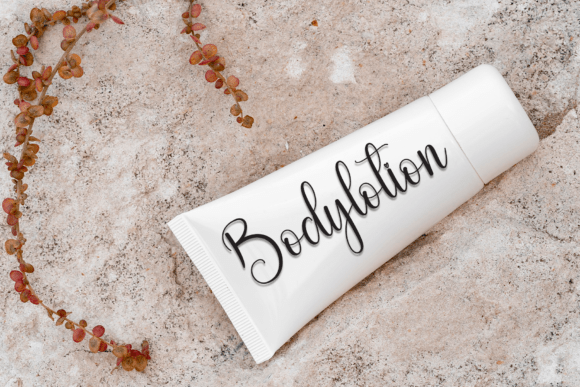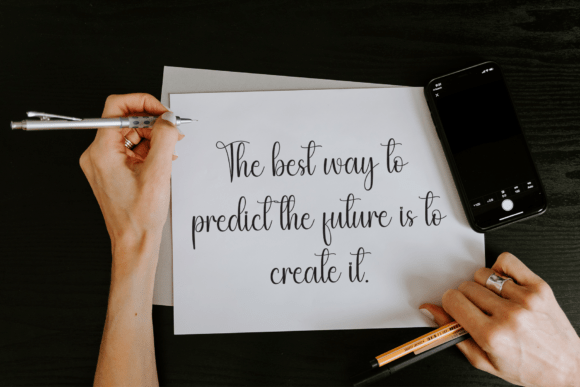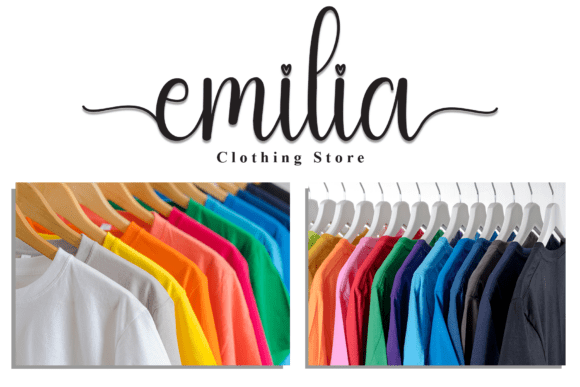
Escape Font: Elegant Handwritten Script for Wedding Branding
About the Escape Font
Welcome to the world of Escape Font, a typeface that will inspire your next great project. Escape is a stylish handwritten script font that combines elegance with a modern flair. Its flowing strokes and organic curves bring warmth and sophistication to any project. Ideal for branding, invitations, and social media, this typeface adds a personal, refined touch with effortless charm.
Escape Font excels in applications requiring a touch of refined elegance, such as logotypes for luxury brands, wedding invitations, or short-form editorial pieces. Its flowing nature makes it less suitable for body text or lengthy paragraphs where readability is paramount. Avoid using it in UI contexts or situations demanding high levels of screen legibility.
Pair Escape with a clean sans-serif like Lato for a modern contrast, or a classic serif such as Garamond for a more traditional feel. A geometric sans-serif like Montserrat can also provide a striking juxtaposition, adding a structured counterpoint to Escape’s organic forms.
Escape’s personality is sophisticated yet approachable, conveying both elegance and a friendly warmth. It’s ideal for brands aiming for a balance between high-end style and relatable charm.